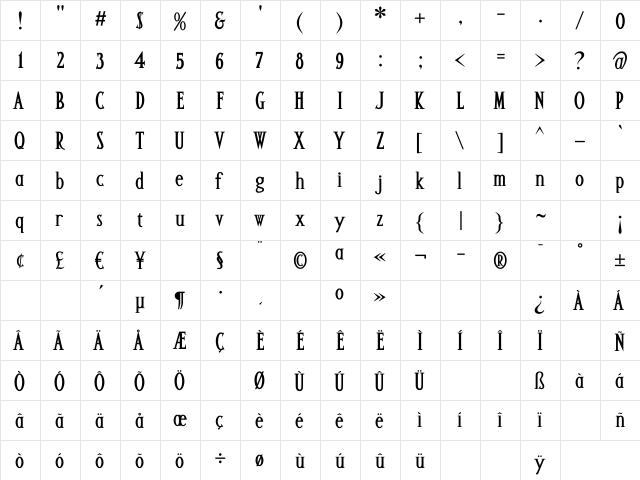
AltarBold Regular
Design Context for AltarBold Typeface
AltarBold takes a measured approach to typography — its balanced proportions and neutral character make it a reliable workhorse for both digital and print work. The heavy weight commands attention and anchors typographic hierarchies.
Pro Tip: Pair AltarBold with a font of contrasting weight or personality to build a more expressive typographic hierarchy.